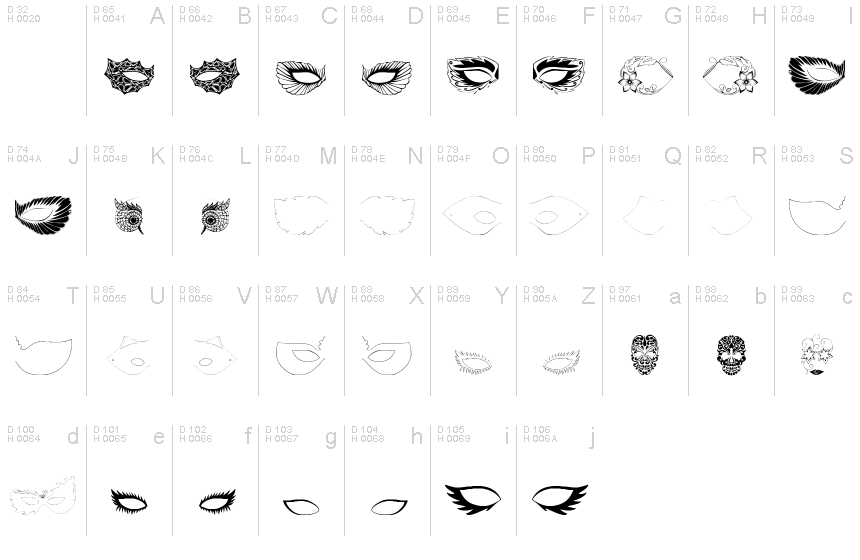
MaskbyEBO
The Mask by EBO font from Digital Typeface Studio captivates with its intricate, geometric designs that evoke a sense of mystery and intrigue. Featuring a range of mask-inspired symbols, this dingbat font showcases a striking blend of sharp edges, angular lines, and fluid curves. Each character exudes a distinct personality, inviting the viewer to delve deeper into the allure of concealed identities and hidden expressions.
This versatile font lends itself well to a variety of design applications, from editorial layouts and branding elements to packaging and event materials. Its unique visual language can elevate projects that seek to convey a sense of secrecy, drama, or the exploration of the human experience. Whether crafting a captivating invitation, designing a bold logo, or enhancing the aesthetic of a publication, the Mask by EBO font serves as a powerful tool for designers seeking to make a lasting impression.